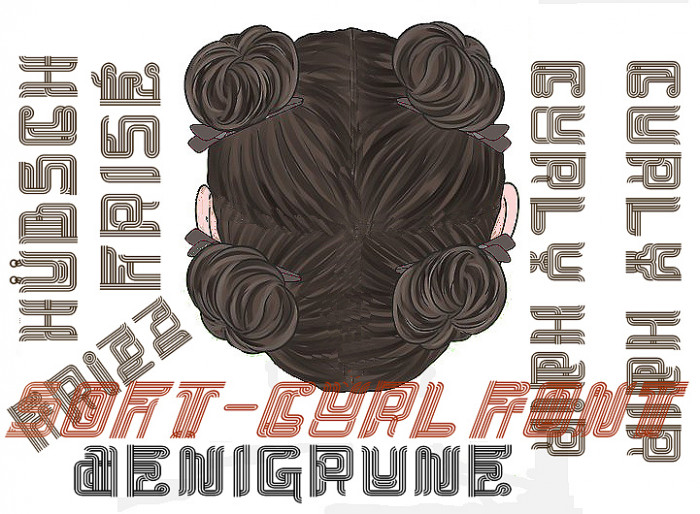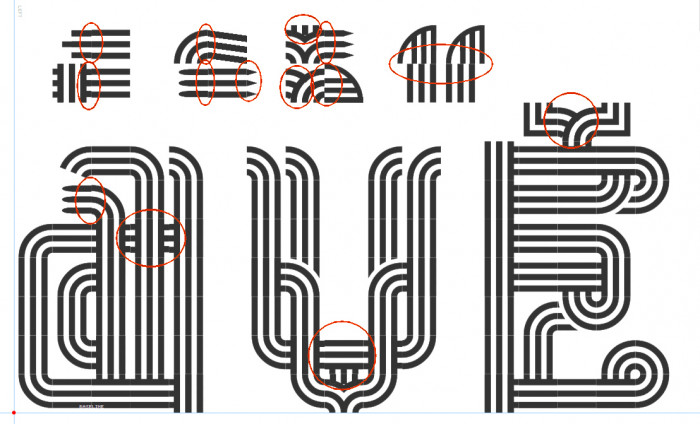
Inspired by a video showing a hairdresser creating a wig for a play........
Many LC glyphs are an alternate to corresponding UC.
I haven't mastered creating good joints between FS bricks and the compos I need to make ""to join"" the two types of brick. Trying to get them to flow into each other produces more or less untidy joining in many places which I find frustrating. Maybe I have to sketch out simpler designs for easy Fontstructing.
Looking at the caron I wonder if the center cross-over brick needs replacing with the one that dips downwards? See the two different bricks in the caron of E and e.
@zeph: thanks :)) regarding the compos: those I make for FS own 3line 'connect' bricks have the lines starting in wrong positions or have lines of incorrect thickness, so they don't join correctly. Examples in this sampler->